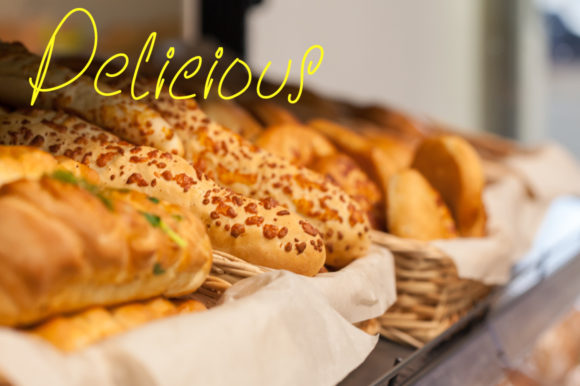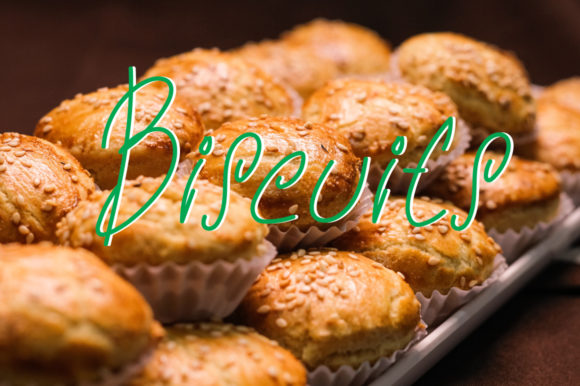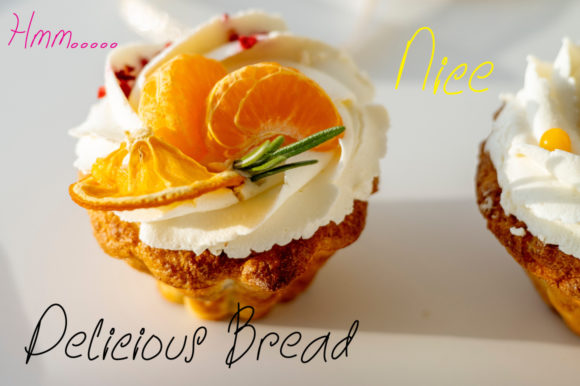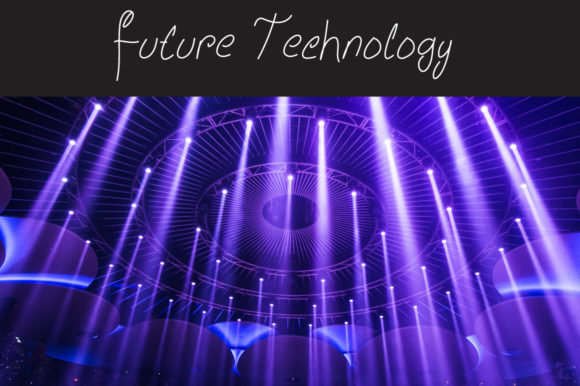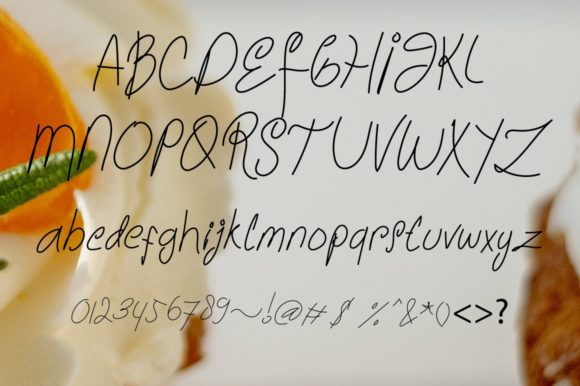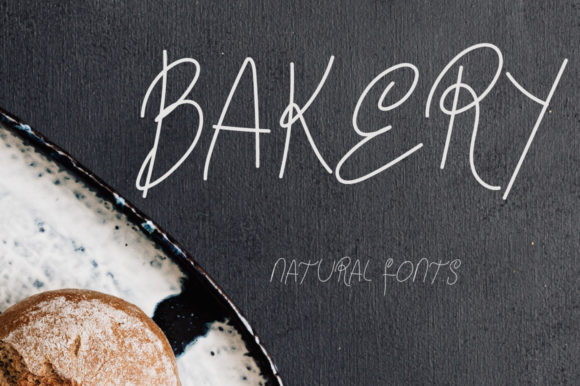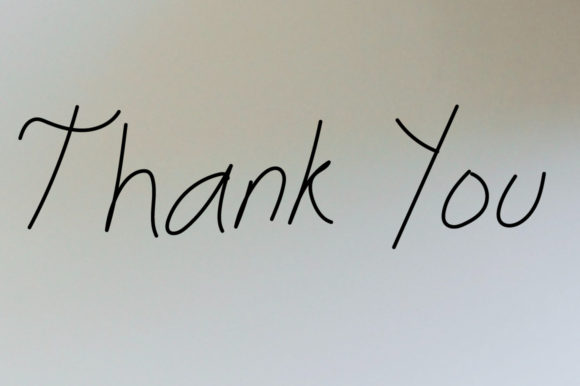
Bakery Font
About Bakery Font
“Bakery” sounds like a delightful and versatile handwritten font with a soft touch, designed to bring a sense of fun and romance to a variety of creative projects. Let’s delve into its features and potential applications:
**Handwritten Charm:**
Describing Bakery as a handwritten font suggests that it carries the unique charm and personal touch associated with hand-drawn elements. This can infuse your designs with warmth and authenticity, making them more inviting.
**Soft Font:**
The mention of a soft font indicates a gentle and smooth aesthetic. This softness can contribute to a friendly and approachable visual experience, creating a comfortable and appealing atmosphere in your designs.
**Fun and Romantic Touch:**
The promise of adding a fun and romantic touch implies that Bakery can evoke specific emotions in your designs. This makes it suitable for projects where a playful or romantic atmosphere is desired, such as on t-shirts, award certificates, cup labels, and more.
**Versatility Across Projects:**
Highlighting Bakery’s suitability for t-shirts, car decorations, award certificates, cup labels, and more indicates its versatility. This font appears to be adaptable to a wide array of design contexts, making it a valuable asset for designers working on diverse projects.
**Applications:**
The specific mention of t-shirts, car decorations, award certificates, and cup labels suggests that Bakery is versatile enough for both digital and physical applications. Its adaptability makes it suitable for various surfaces and materials.
Incorporating Bakery into your designs could bring a sense of playfulness and romance. Whether you’re working on branding, promotional materials, or personal projects, this font seems ready to enhance the overall visual appeal with its unique and soft handwritten style.
Remember to experiment with different applications and settings to fully explore the possibilities that Bakery offers. Its versatility suggests that it can adapt seamlessly to various design needs, providing a soft and charming touch to your creative endeavors.